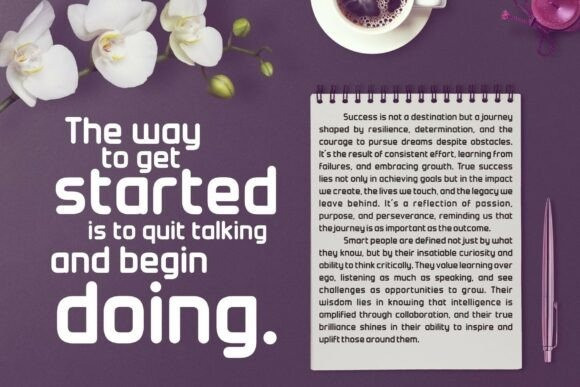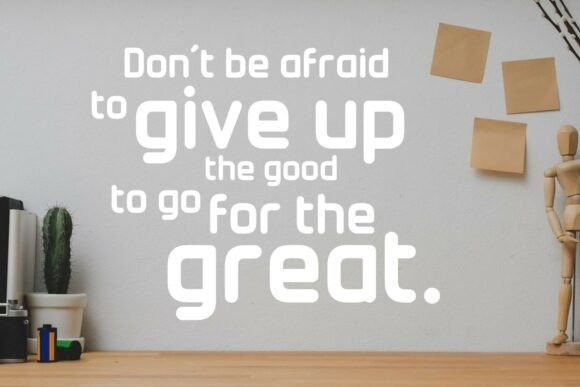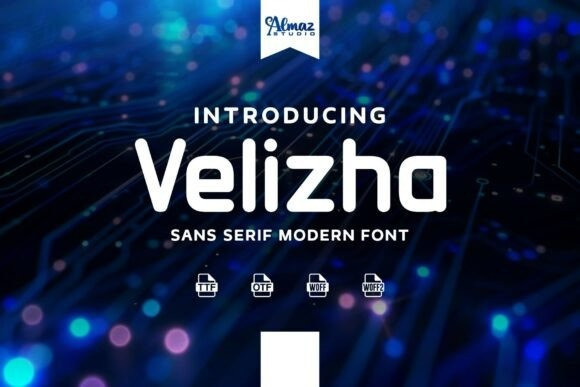
Velizha Font is a sleek sans-serif modern font designed for clarity, style, and versatility. With its smooth, rounded edges and clean geometry, Velizha delivers a contemporary look that’s perfect for technology, branding, UI design, advertising, and corporate identities. Its balanced letterforms make it highly readable while still exuding a fresh, futuristic vibe.
Velizha ensures sharp, professional results across both print and digital media. Whether you’re crafting a tech startup logo, a modern website header, or polished marketing materials, Velizha is your go-to font for a clean and forward-thinking aesthetic.